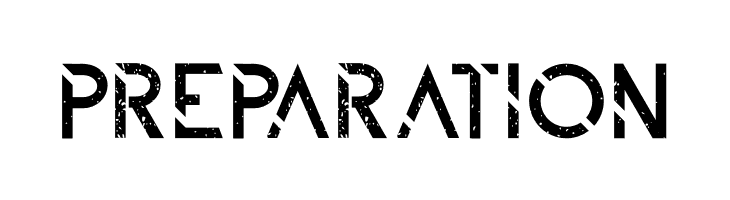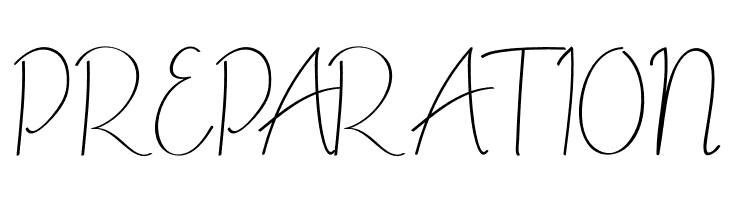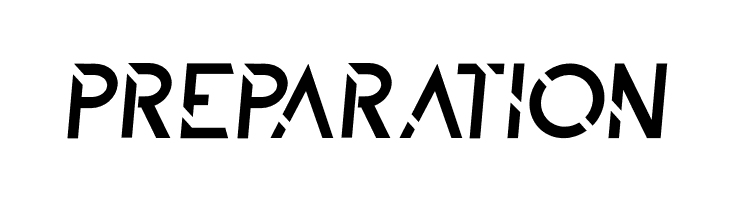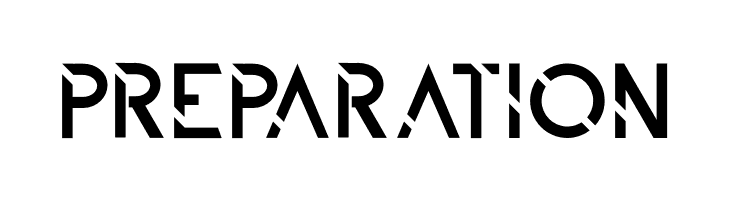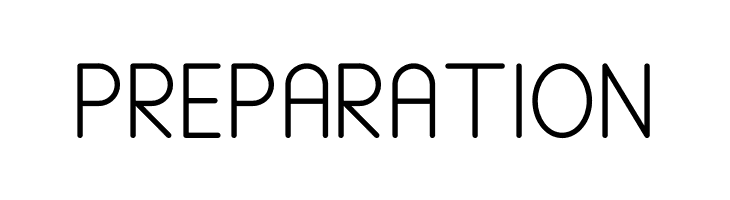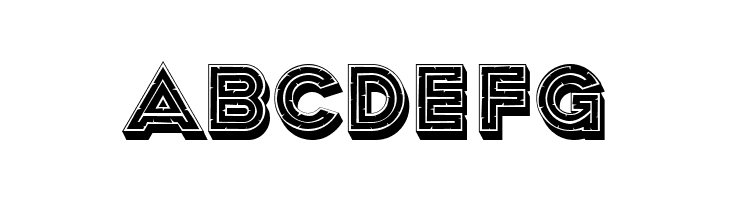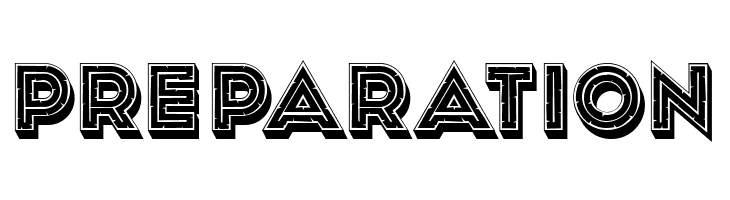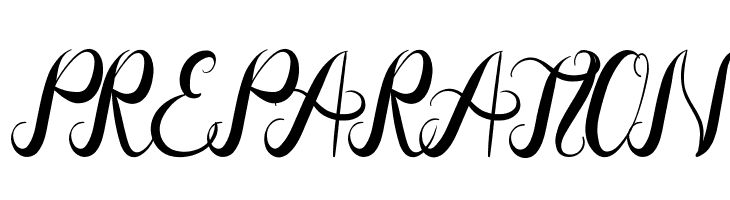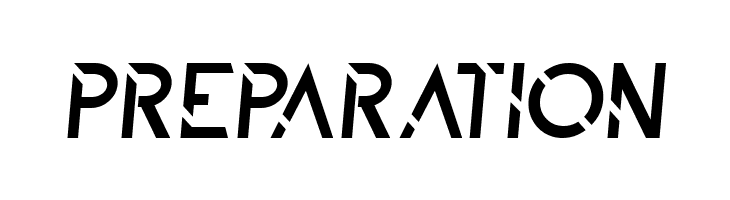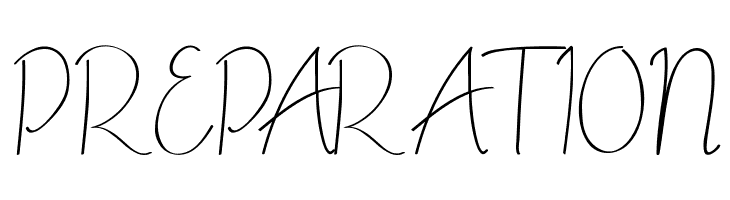
• Album Regular
A bold, geometric font with a three-dimensional outline and shadow effect.
• AlburgoneDEMO
A bold, dynamic font with a playful yet sophisticated style.
• Alburquerque
A bold, outlined font with a modern and geometric style.
• Alcatraz Demo
A futuristic, geometric font with sharp angles and clean lines.
• Alche Monogram Regular
An elegant monogram font with decorative wreath frames around each letter.
• Alchemion Demo
A unique blend of classic and modern with organic, hand-crafted letterforms.
• Alchemist
• Alchemist Whiteboard Drop Shadow
A bold, playful font with a three-dimensional drop shadow effect.
• Alcohol
Alcohol-themed pictogram display font with bold, illustrative icons.
• Alcohol Regular
A bold, geometric font with a three-dimensional layered effect, ideal for striking headlines.
• Alcott Galliana
An elegant, flowing script font with sophisticated uppercase and lowercase letters.
• Aldebaran
An elegant and intricate script font with flowing, interconnected letterforms.
• Aldebaran_PersonalUseOnly
An elegant script font with ornate uppercase and flowing lowercase letters.
• Alderlite Personal Use
A bold, expressive script font with flowing, cursive letterforms.
• Alderta
A flowing, elegant script font with a handwritten aesthetic.
• Alderta
An elegant, flowing script font with graceful curves and sophisticated flair.
• AldhyaksaPersonalUse
A bold, dynamic script font with a handwritten appearance.
• Aldira Demo
An elegant, cursive font with intricate loops and swashes.
• ALDITH
A bold, modern stencil-like font with geometric cuts and angles.
• ALDITH
A bold, geometric font with sharp angles and a modern, edgy style.
• ALDITH DEMO
A bold, geometric font with a modern, stencil-like design.
• ALDITH DEMO Grunge